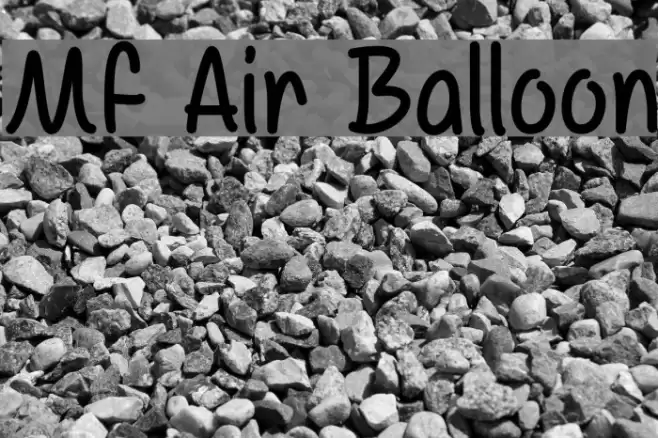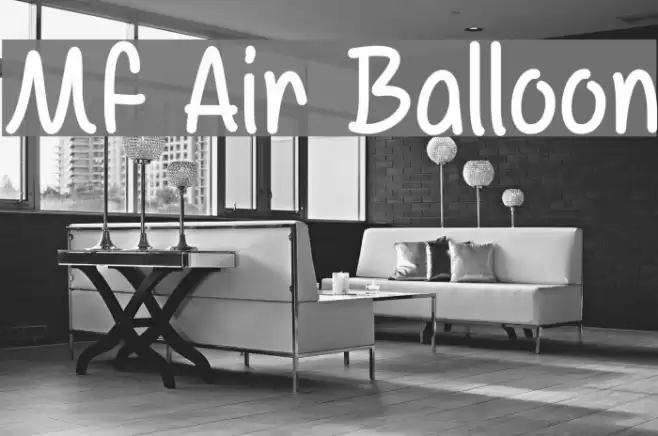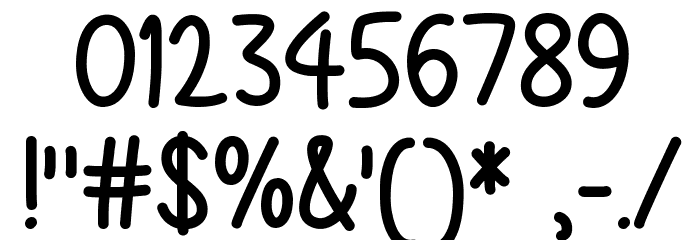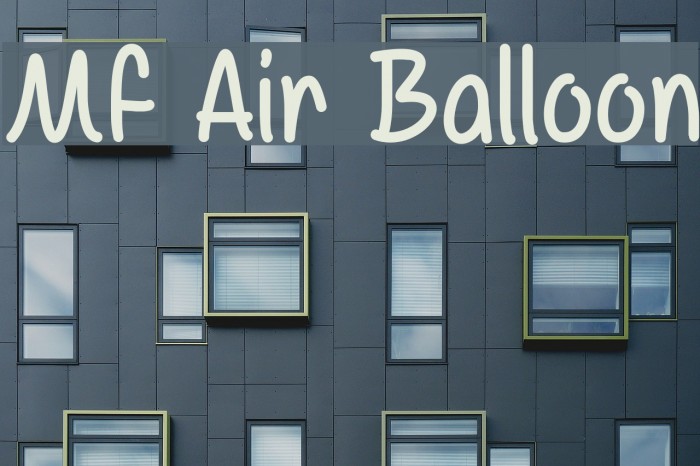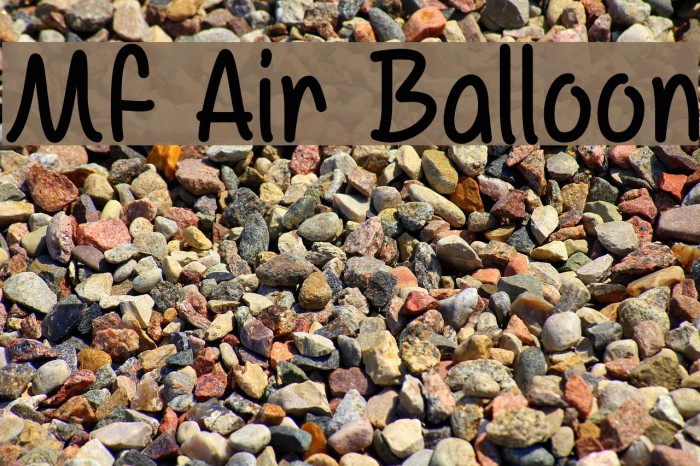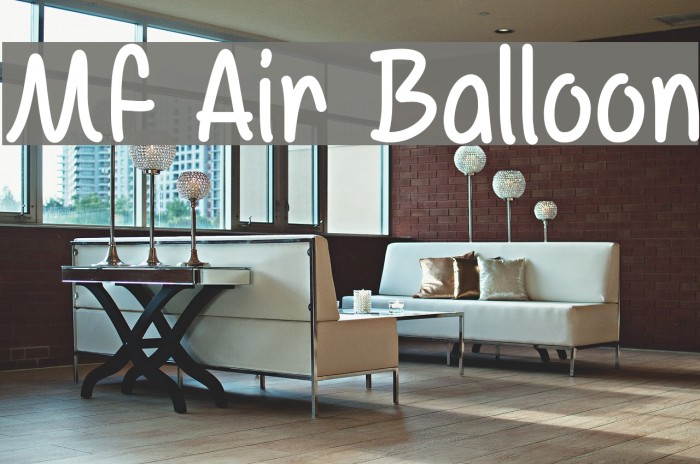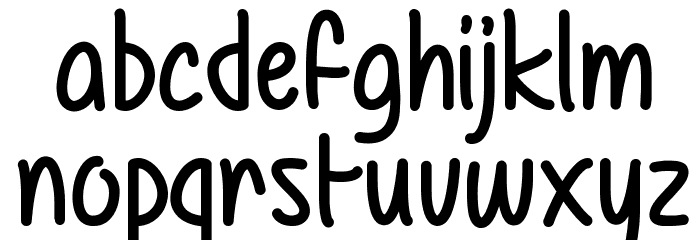
Mf Air Balloon Font
Mf Air Balloon Description
This playful and whimsical font features rounded, balloon-like characters that convey a sense of fun and lightheartedness. The uppercase and lowercase letters maintain a consistent style, with smooth curves and a slightly informal appearance. The numbers and special characters are designed to match the overall aesthetic, making them suitable for a variety of creative applications. The font's design is approachable and friendly, making it ideal for projects that aim to evoke joy and creativity. Its unique style stands out, making it perfect for eye-catching designs.
A playful, balloon-like font with rounded, whimsical characters from Uncategorized fonts.
- Proposed Projects: Ideal for children's books, party invitations, playful branding, and creative posters.
- Overall Style: Playful, Whimsical